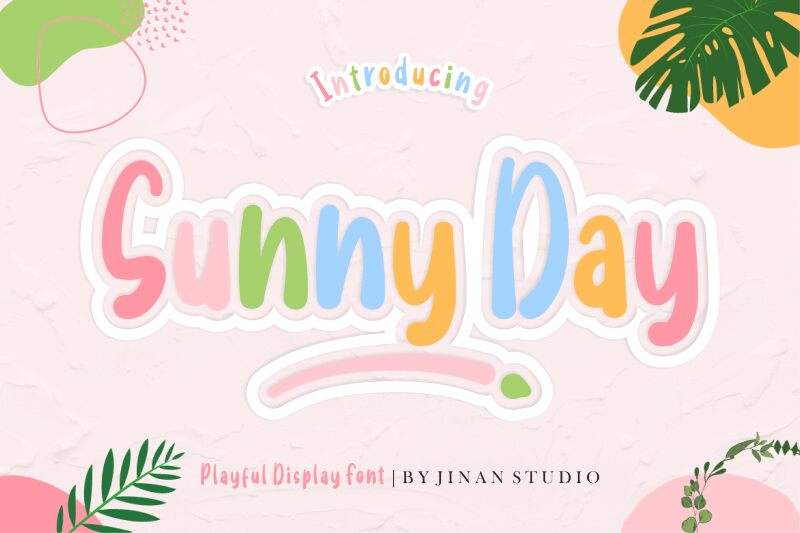
Sunny Day
Sunny Day font by Ainun Jinan is a free brush font whose letters were drawn with condensed width. It is clean in presentation, and the alignment of the elements gives it a unique look. Though not specifically playful, this typeface has a great deal of whimsical balance present in its casual contemporary outlook.
Many use cases await this resource including poster design, flyers, banners, social media covers, shop signs or facade designs, t-shirts/branding items designs. Its hand-drawn letters can also enrich menu headers for local shops/cafes/restaurants or as deemed fit by designer ideas.